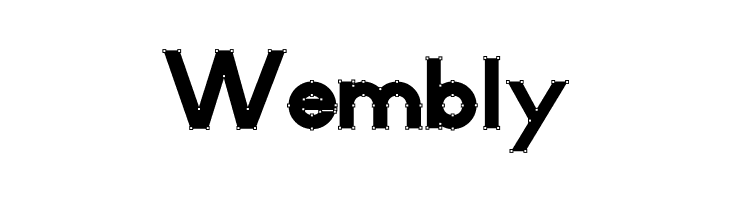
Washington Lifestyle Font
- Font: Washington Lifestyle
( Fonts by Daniel Gauthier )
A bold, geometric sans-serif font with uniform stroke widths and a modern look.